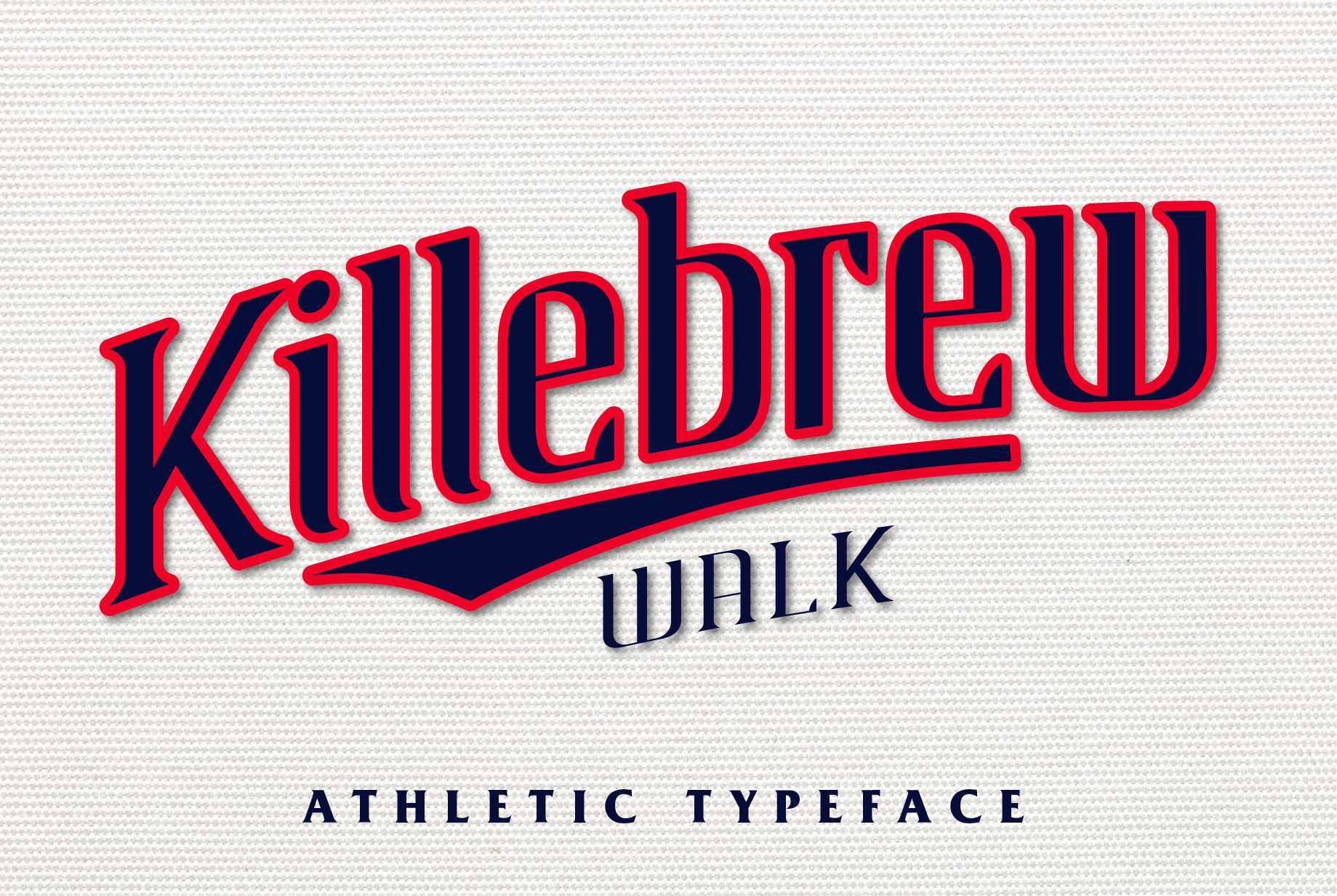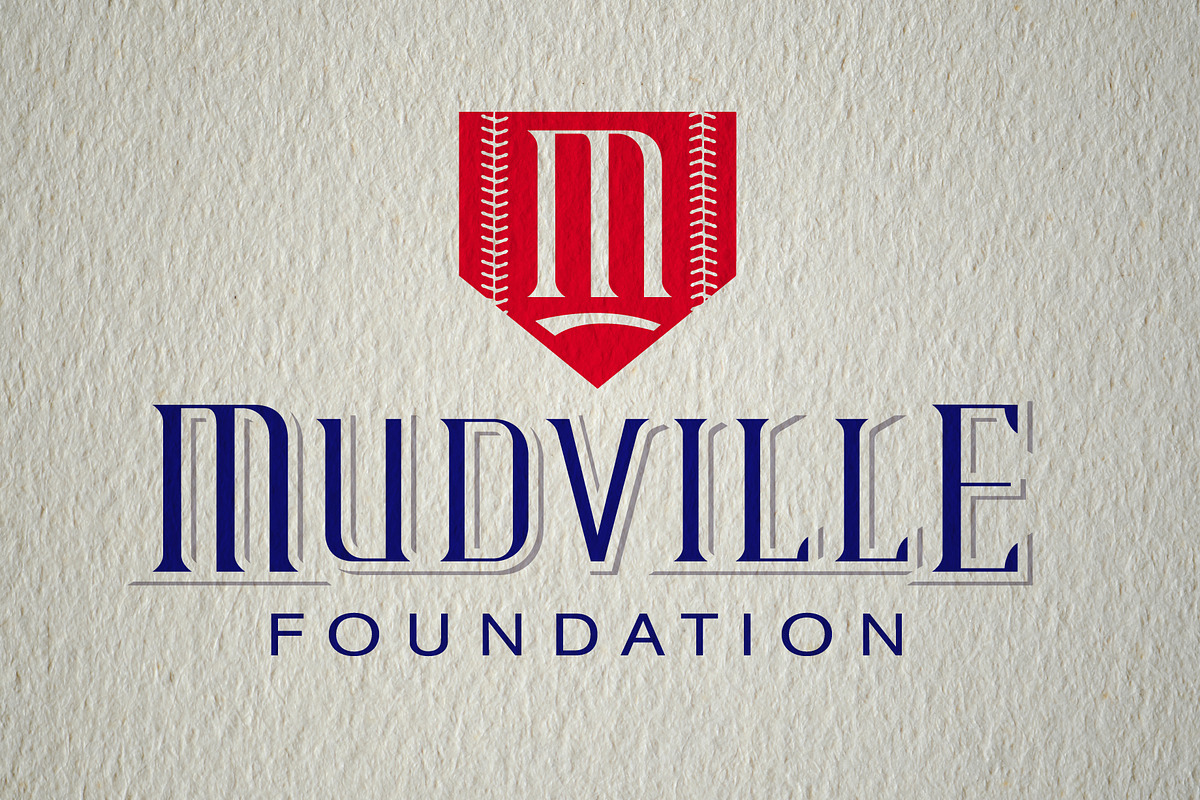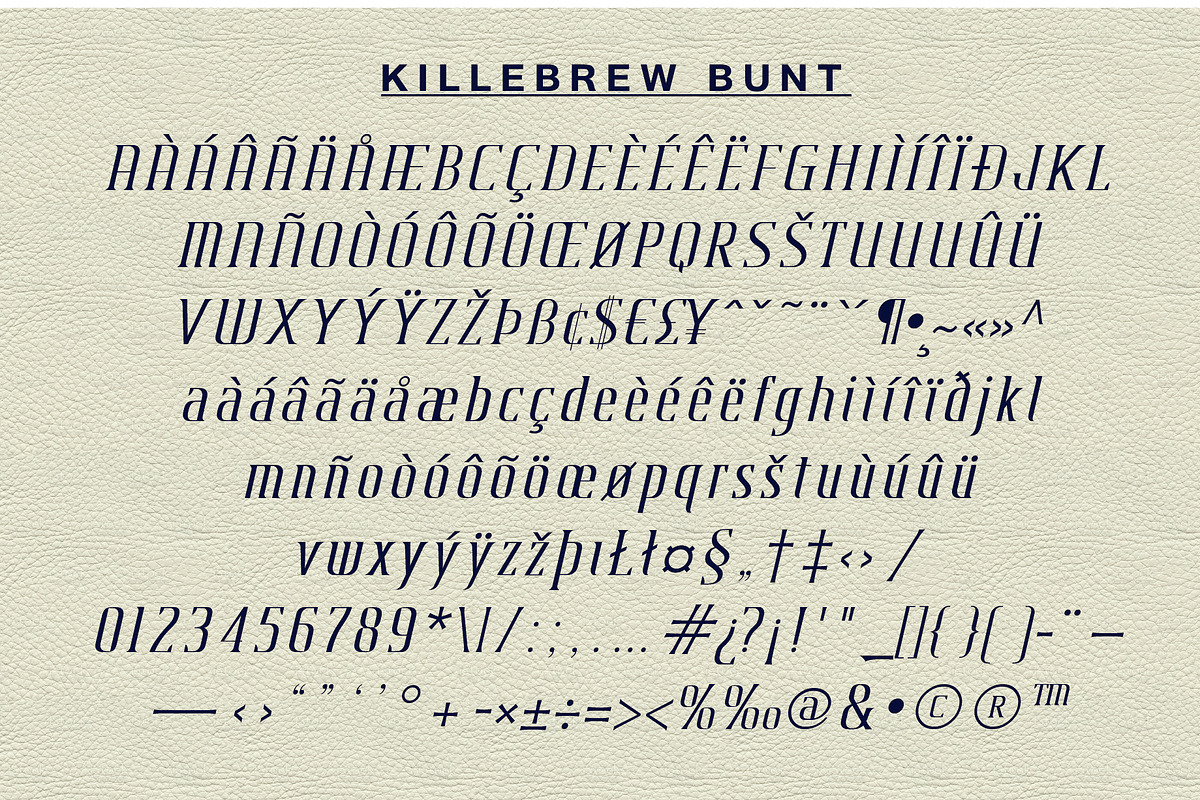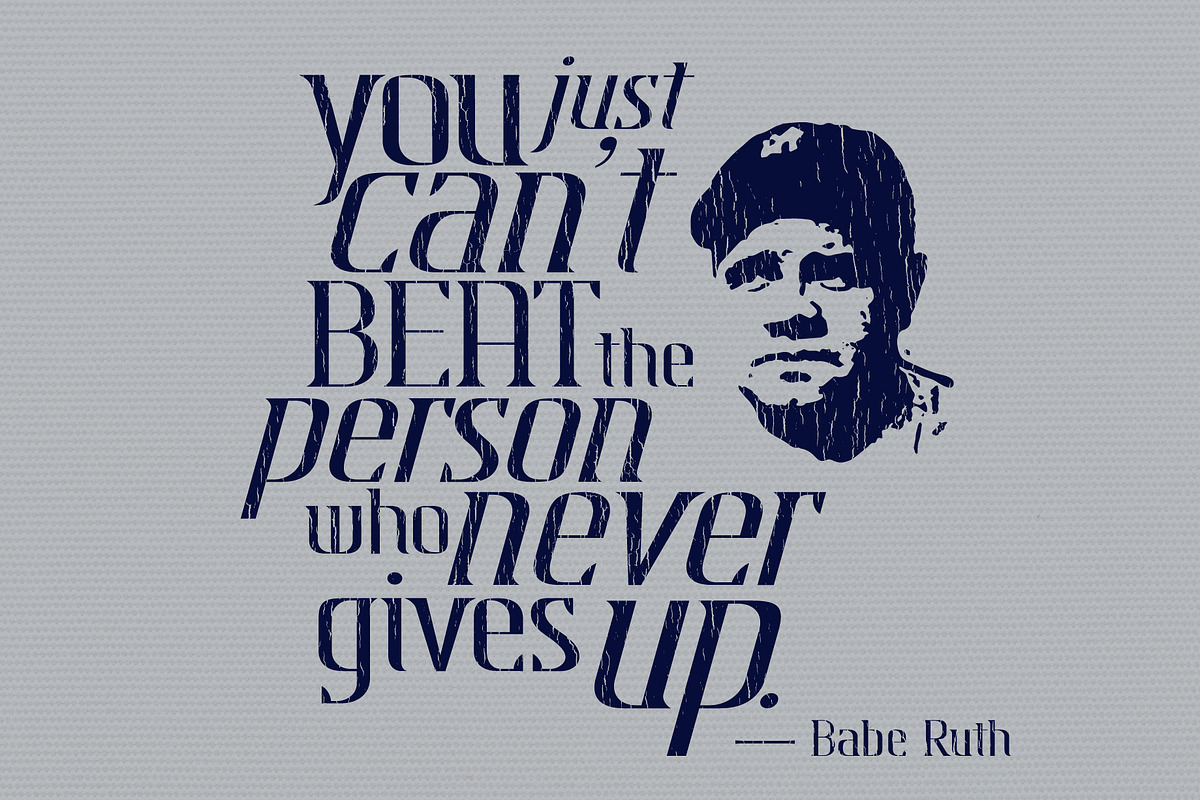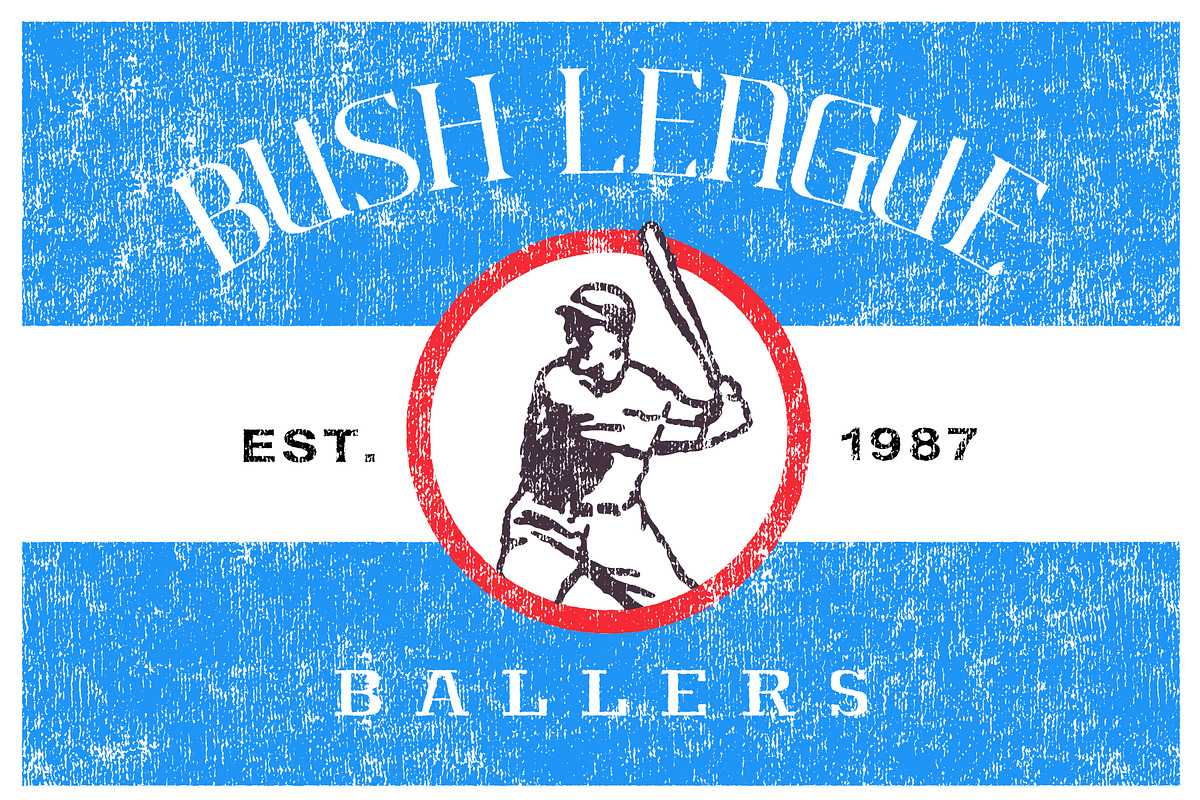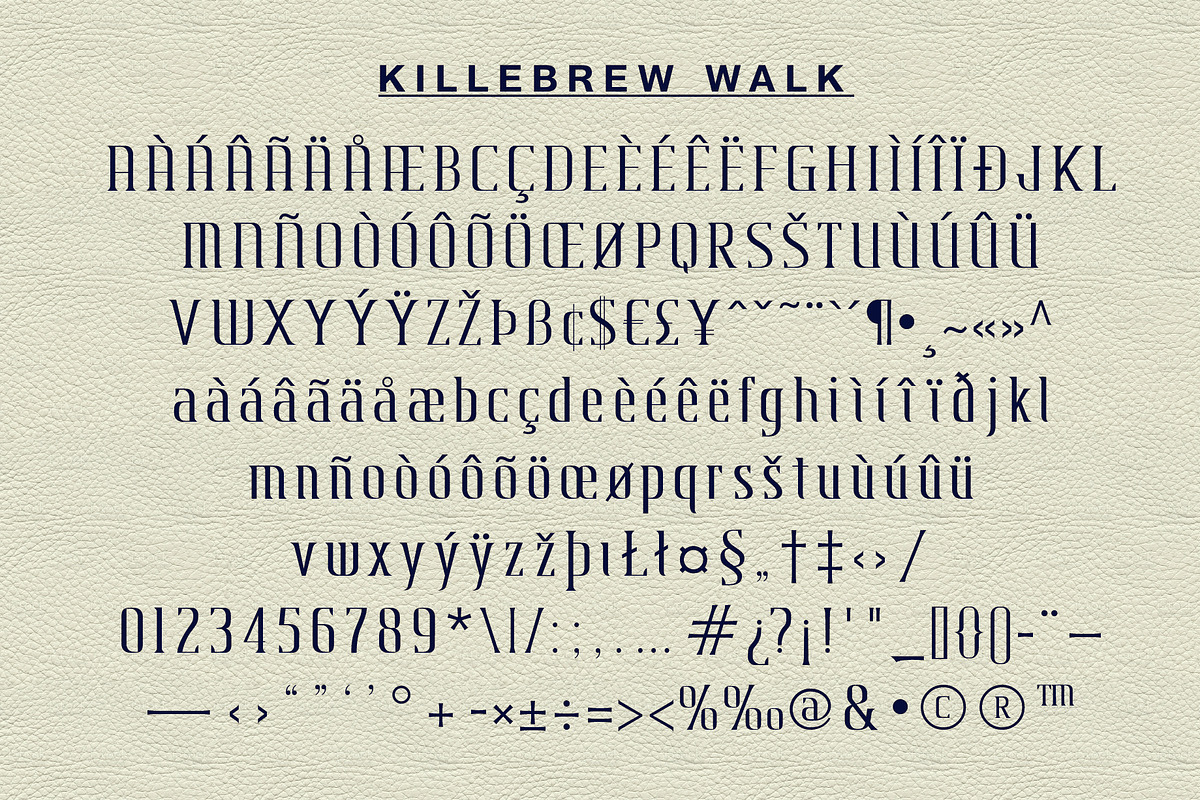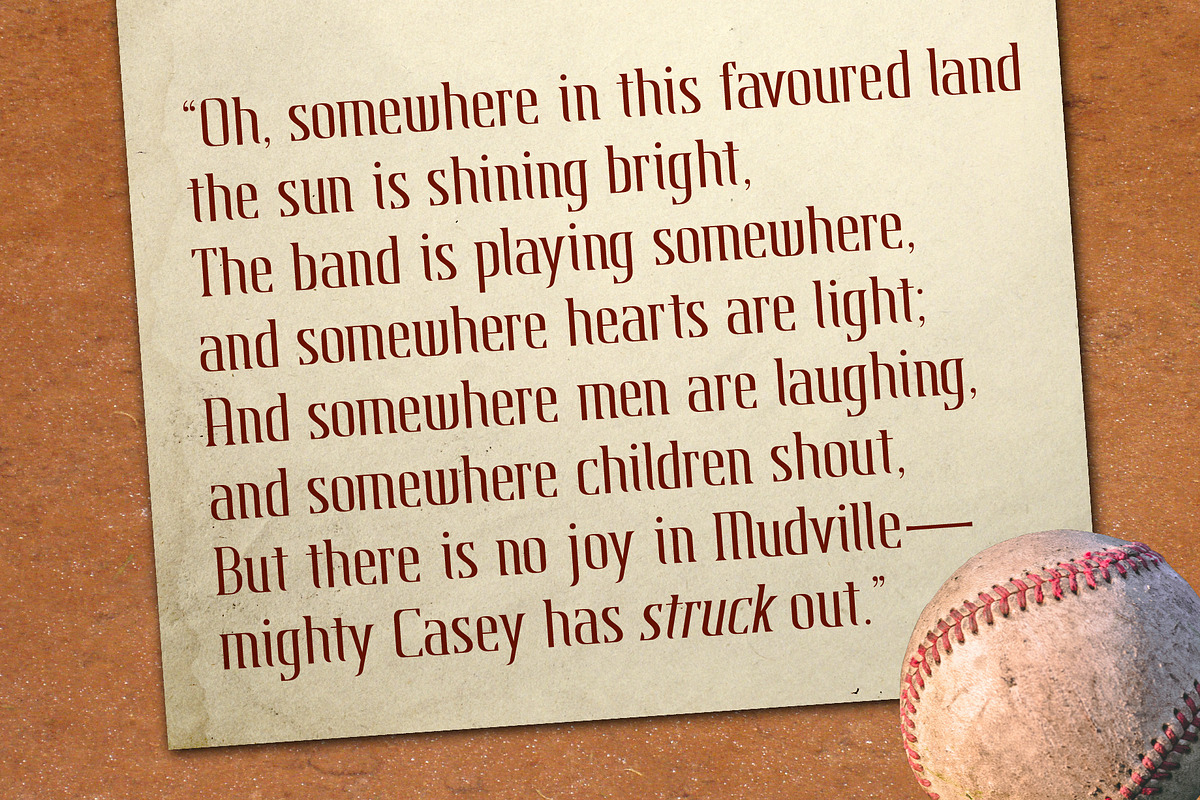
Killebrew Walk | Athletic Typeface
K I L L E B R E W • W A L K — is a tall, slender addition to the Killebrew Type Family
A reliable utility player, Killebrew Walk gets on base with its unique versatility as a stylish body typeface. A narrow-set typeface with thin strokes and flared, pointed terminals reveals a nostalgic playfulness — perfect for those projects that require a simple serif with an added streak of energetic agility. When you need a little more hustle, put in Killebrew Bunt — Walk's italic complement!
- Two type styles – Walk (regular) and Bunt (italic)
- Upper (A-Z) and lower case (a-z) characters
- Numbers (0-9)
- Standard punctuation and glyphs
Killebrew Walk and Bunt will get your design projects moving — be it stories, logos, or even posters.